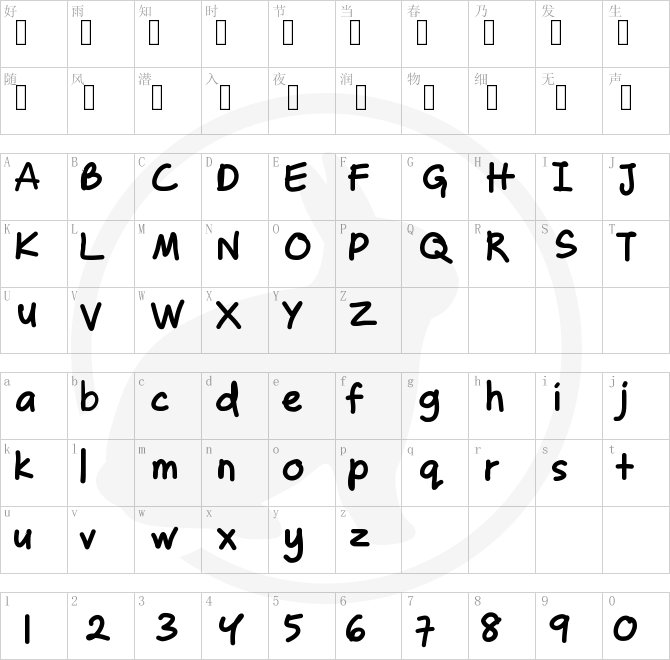
- Font Name:ZakirahsBold
ZakirahsBold.ttf is a very beautiful artistic font, ZakirahsBold.ttf is widely used in the design and printing of various books and pictures,ZakirahsBold.ttf has a strong visual impact,ZakirahsBold.ttf is a commonly used font in newspapers, magazines and books, and is used in posters, e-commerce Poster design, store design, logo design, font design and other fields.ZakirahsBold.